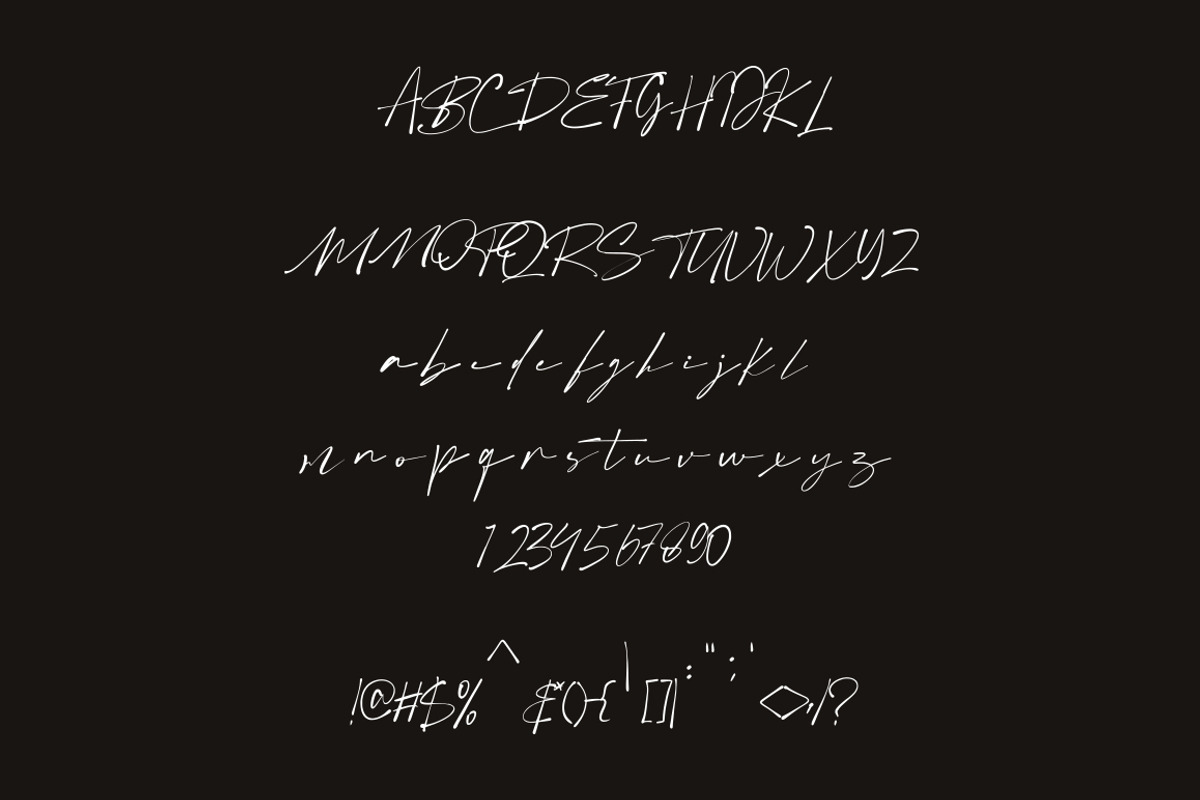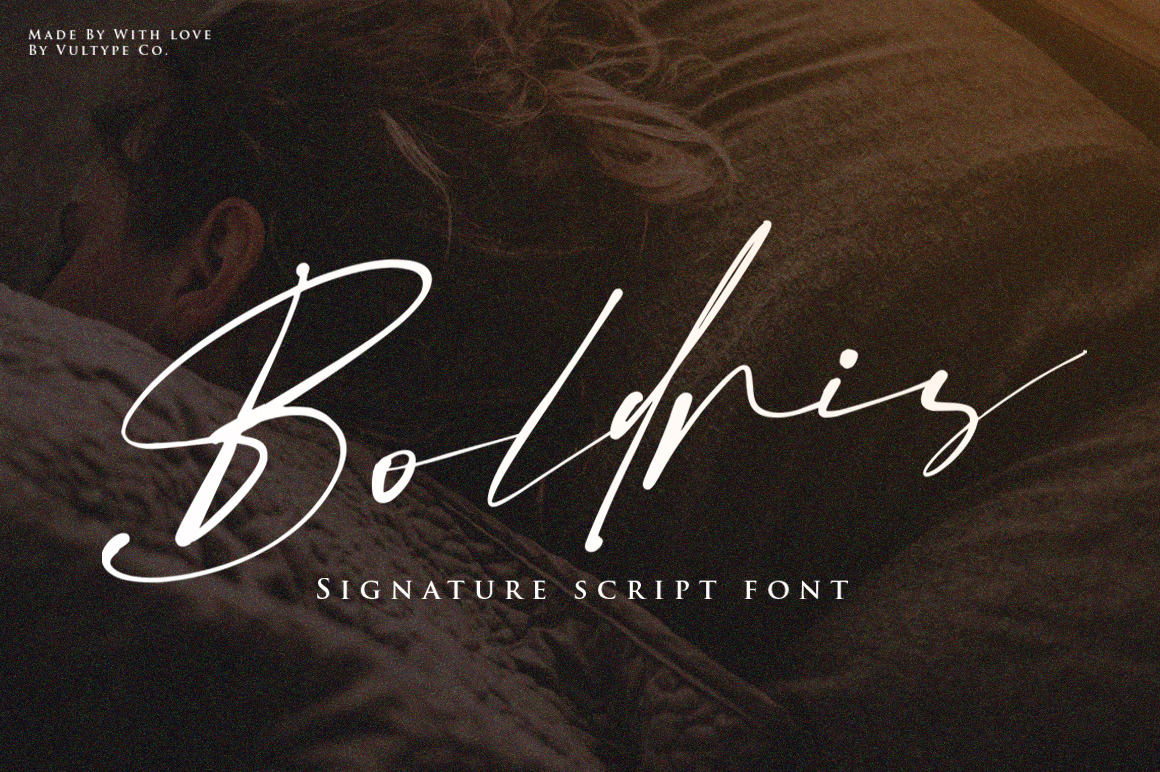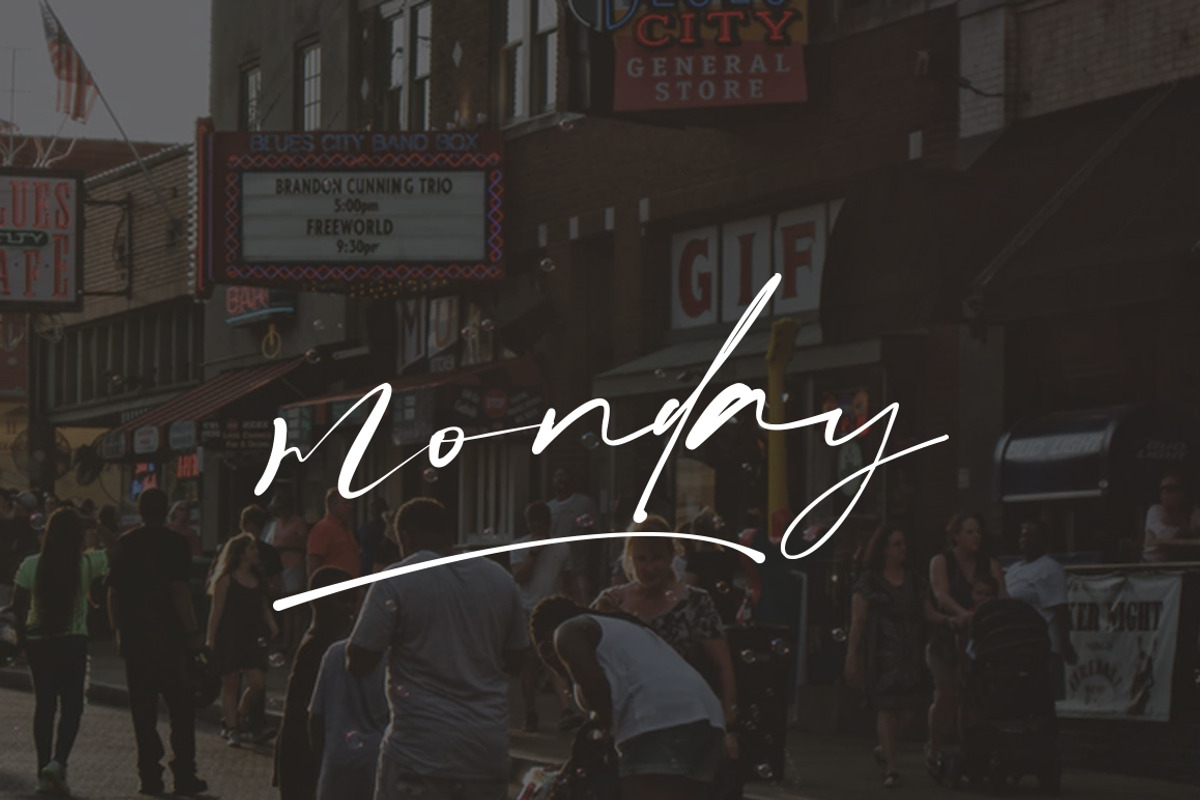
Boldris Signature Font
Boldris Signature Font is minimalistic script with beautiful ligature and alternate font.
Contemporary handwriting fonts with ligatures and alternative styles ready to add unique look and bloom on your design
It easily cooperating together For Magazine, Movies, or Book Titles. For Photography, Wedding Invitation, Restaurant Menu or T-shirt Design. For Flyers, Banner Ads, web and printing. From Food and Fashion to a Cosmetics product
- Ligature Feature